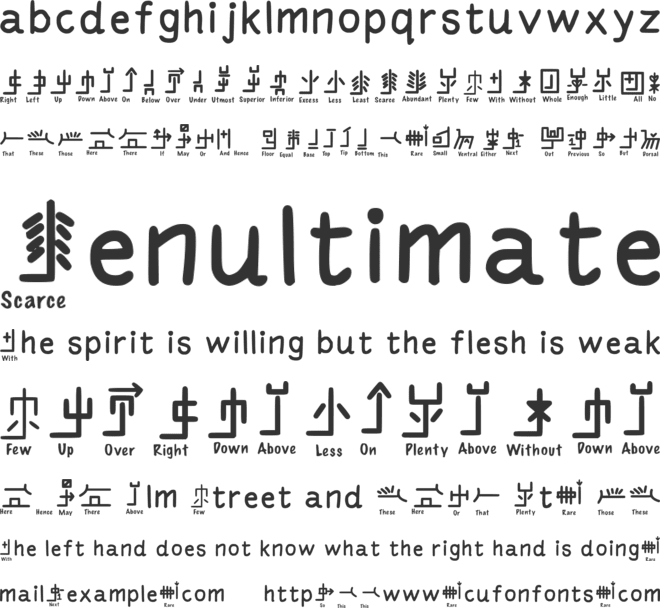
Mantrakshar Learn 02 Font
Mantrakshar font with almost 480 characters in unicode format you can write your own english words also using this alphabets